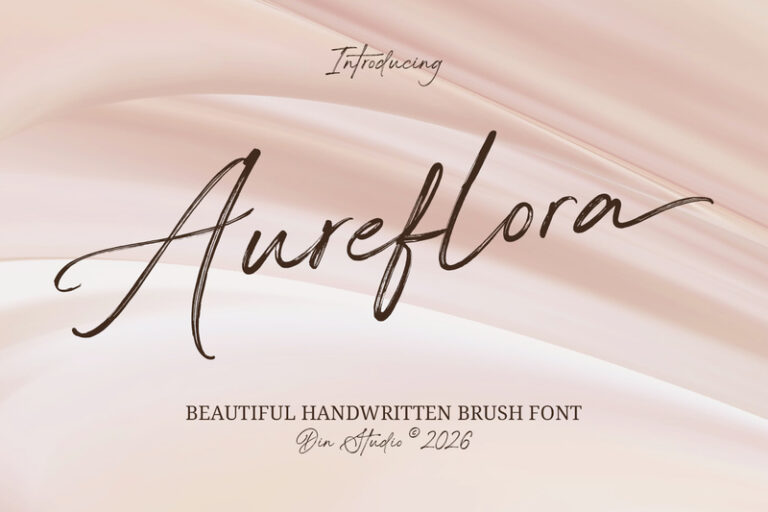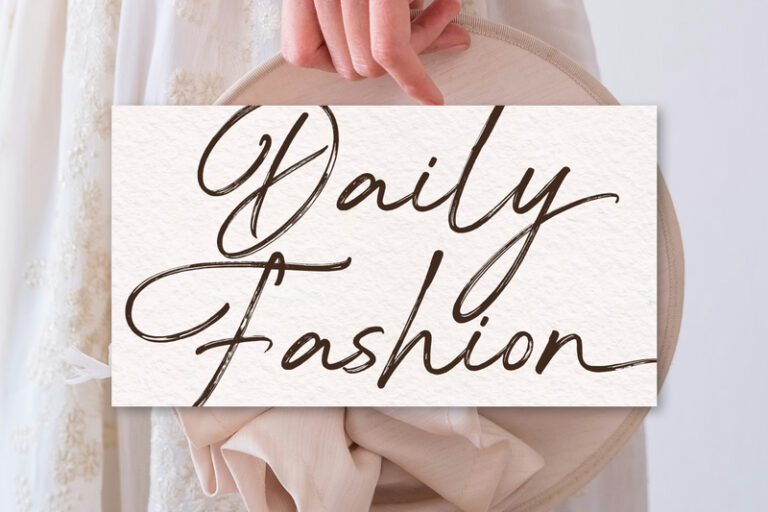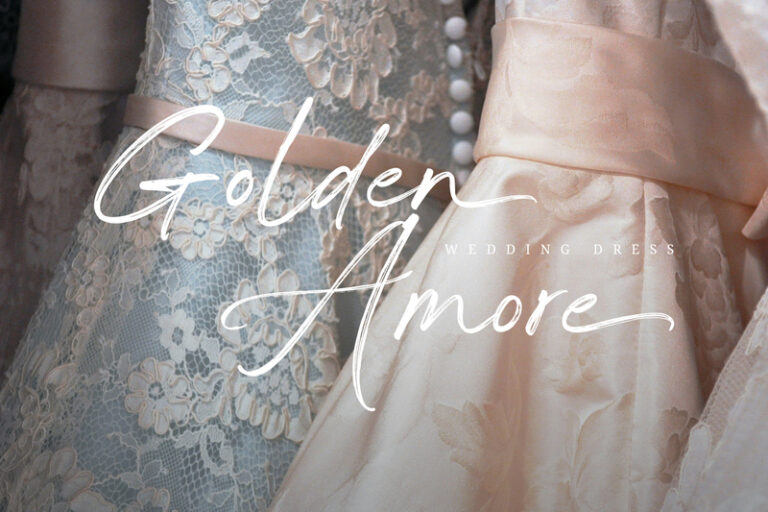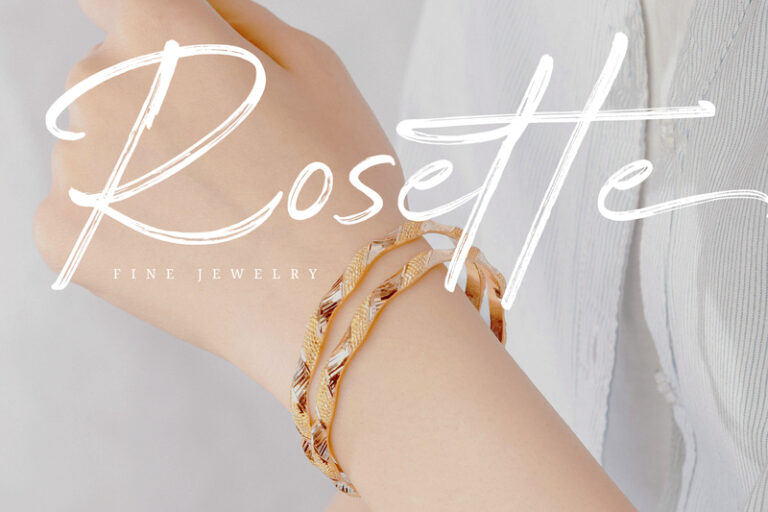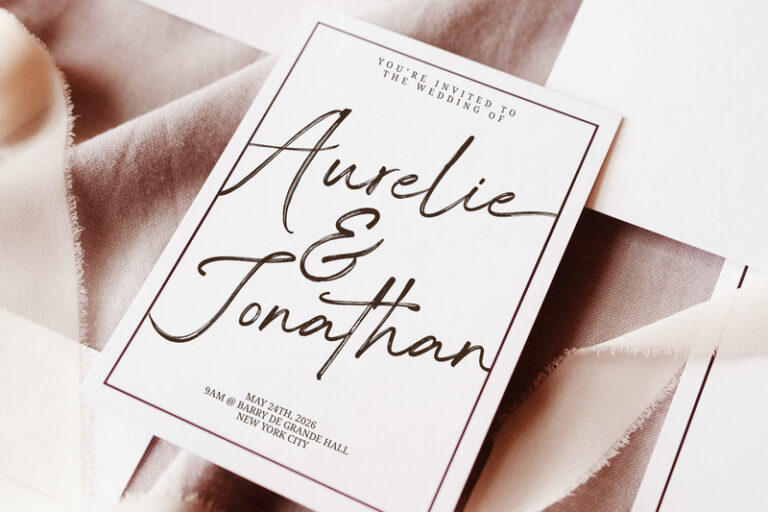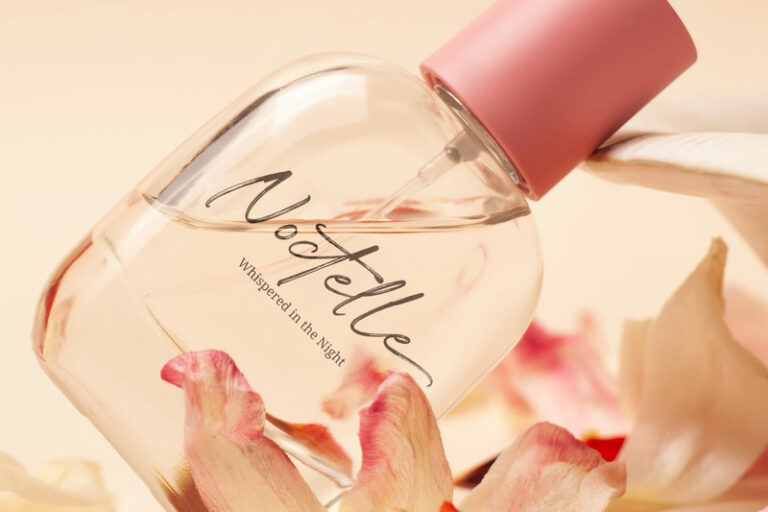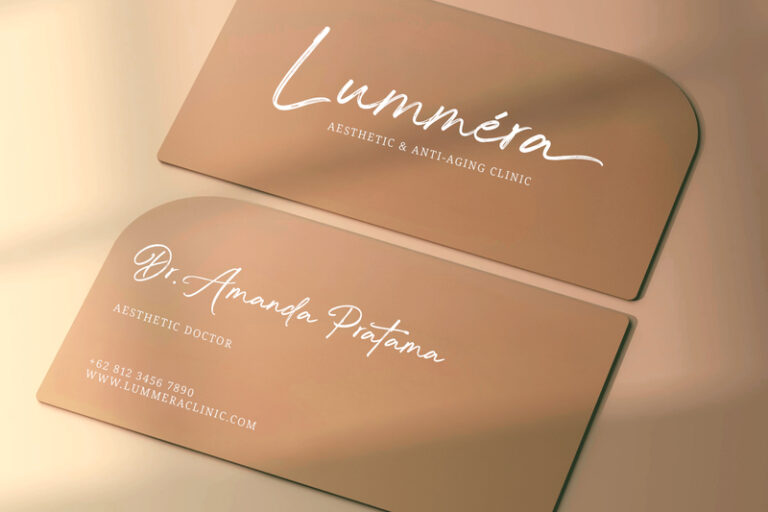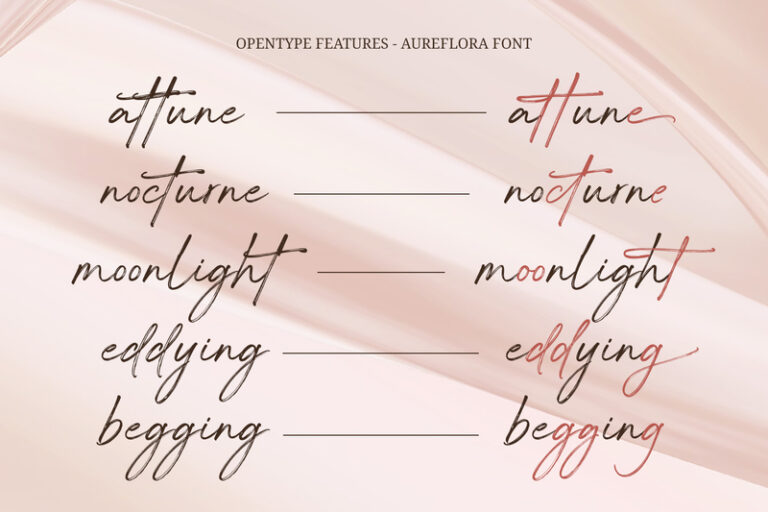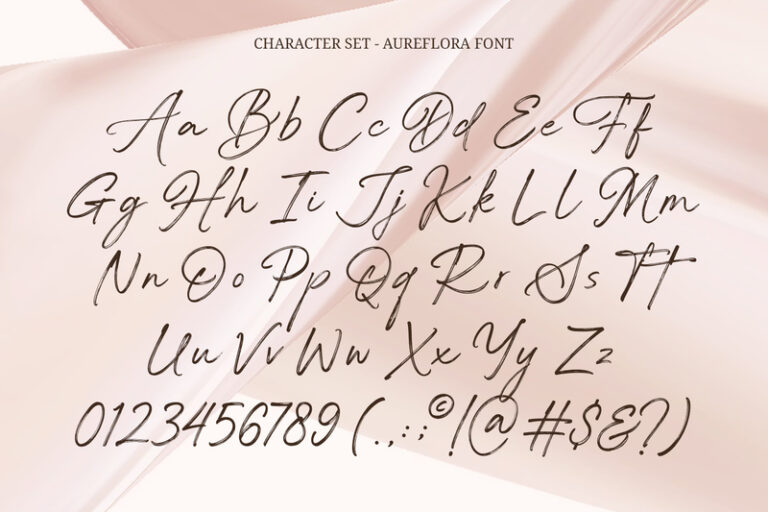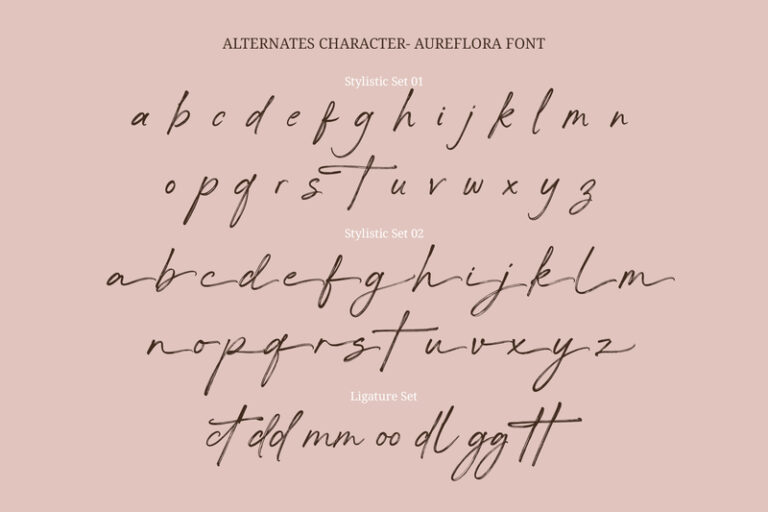
Aureflora – Handwritten Brush Font
Aureflora
Aureflora is a beautifully crafted handwritten script font designed to capture the grace and elegance of natural handwriting. Created with thin, delicate strokes, smoothly connected letters, and subtle ink stroke accents, Aureflora delivers a refined and artistic style that feels personal, expressive, and sophisticated. This font is perfect for designers who want typography that looks authentic, elegant, and effortlessly stylish. In addition, enjoy the features here.
Aureflora fits in logos, invitations, quotes, branding, posters, and many more designs. Find out more ways to use this font by taking a look at the font preview.